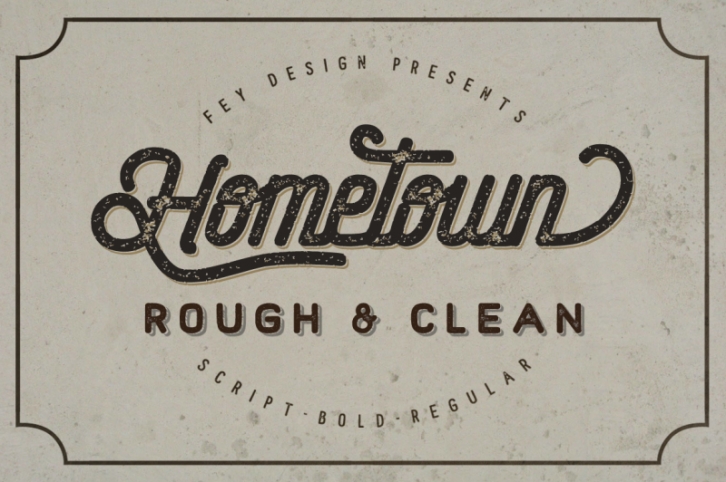
Hometown Clean And Rough Family
Complete pack hometown family font with clean and rough, this font Vintage Calligraphy style, Suitable for design, element design, wedding, event, t-shirt, logo, badges, sticker, and awesome work, etc...
- Combination alternative ligature fonts (Clean And Rough)
- Standard Ligatures, Stylistic Set, Open Type Layout (Clean And Rough)
- Script, Sans And Bold (Clean And Rough)
- Multilanguage Character (Clean And Rough)
- Unique style fonts (Clean And Rough)